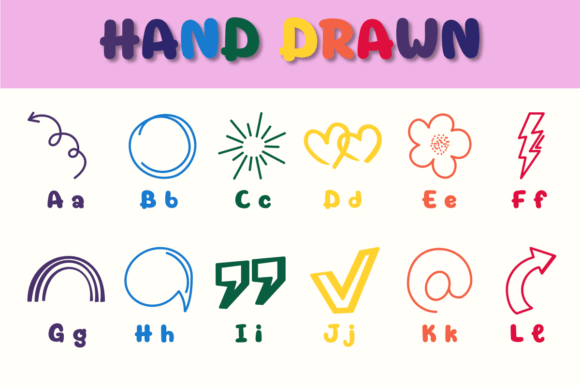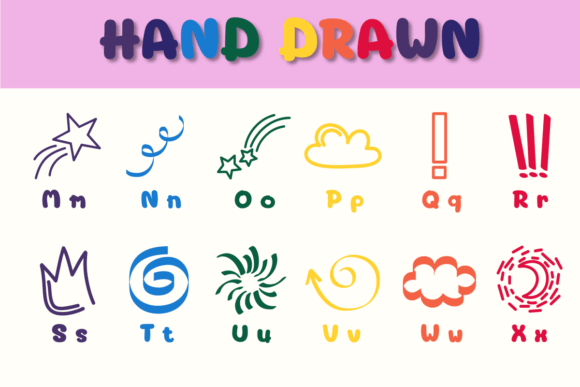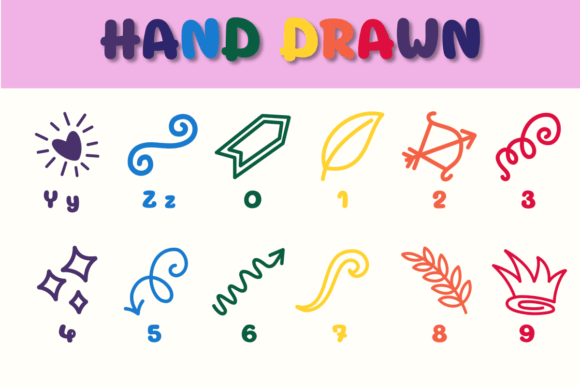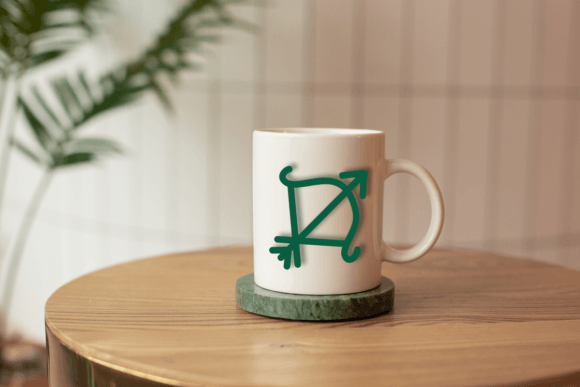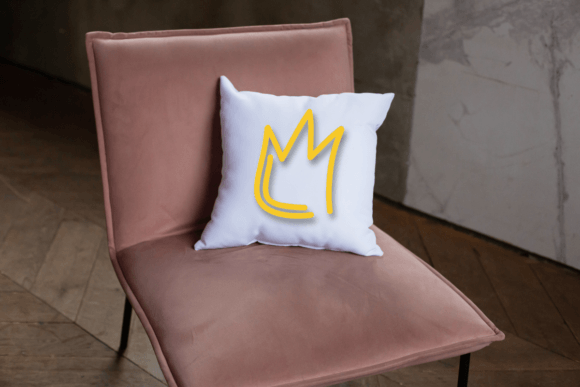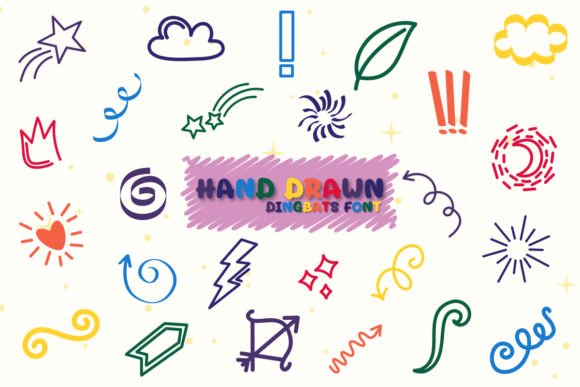
Unlock Your Creativity with Hand Drawn Font: A Sketchy Dingbats Delight
Are you a designer, crafter, or DIY enthusiast looking for a unique and creative way to add a personal touch to your projects? Look no further than the Hand Drawn font, a charming dingbats font with a sketch style that’s perfect for bringing your ideas to life. In this article, we’ll explore the world of Hand Drawn font and discover how it can elevate your creative projects, from wedding invitations to logos and beyond.
What is Hand Drawn Font?
Hand Drawn font is a delightful dingbats font that features a sketchy, hand-drawn style. Unlike traditional fonts, dingbats fonts like Hand Drawn don’t contain letters or numbers, but instead, offer a collection of illustrations and symbols that can be used to add visual interest to your designs. With its imperfect, hand-drawn aesthetic, Hand Drawn font is perfect for creating unique and eye-catching projects that stand out from the crowd.
So, what can you create with Hand Drawn font? The possibilities are endless! Here are just a few ideas to get you started:
• Wedding Invitations: Add a touch of whimsy and romance to your wedding invitations with Hand Drawn font. Use it to create custom illustrations, decorate your envelopes, or add a special message to your wedding stationery.
• DIY and Crafts: Hand Drawn font is a perfect match for DIY and craft projects. Use it to create custom labels, decorate your scrapbook pages, or add a personal touch to your handmade gifts.
• Decorations: Add a creative twist to your home decorations with Hand Drawn font. Use it to create custom wall art, decorate your party banners, or add a personal message to your gift tags.
• Logos and Branding: Hand Drawn font can also be used to create unique logos and branding materials. Its sketchy style makes it perfect for creating a custom logo that stands out from the crowd.
Why Choose Hand Drawn Font?
So, why choose Hand Drawn font over other dingbats fonts? Here are just a few reasons why:
• Unique Style: Hand Drawn font features a unique, hand-drawn style that’s unlike any other dingbats font. Its imperfect aesthetic makes it perfect for creating one-of-a-kind projects.
• Easily Customizable: With Hand Drawn font, you can easily customize your designs to fit your needs. Use it to create custom illustrations, adjust the size and color to match your brand, or combine it with other fonts for a unique look.
Tips and Tricks for Using Hand Drawn Font
Here are a few tips and tricks to help you get the most out of Hand Drawn font:
• Experiment with Color: Hand Drawn font looks great in a variety of colors. Experiment with different color schemes to find the perfect match for your project.
• Combine with Other Fonts: Combine Hand Drawn font with other fonts for a unique look. Try pairing it with a bold font for a striking contrast.
• Use it for Texture: Use Hand Drawn font to add texture to your designs. Try using it to create a background or add a subtle pattern to your project.
In conclusion, Hand Drawn font is a versatile and creative dingbats font that’s perfect for designers, crafters, and DIY enthusiasts. With its unique, hand-drawn style and endless possibilities for customization, it’s the perfect addition to any creative project. Whether you’re creating wedding invitations, DIY crafts, or logos, Hand Drawn font is sure to bring a touch of whimsy and personality to your designs. So why wait? Download Hand Drawn font today and start unlocking your creativity!